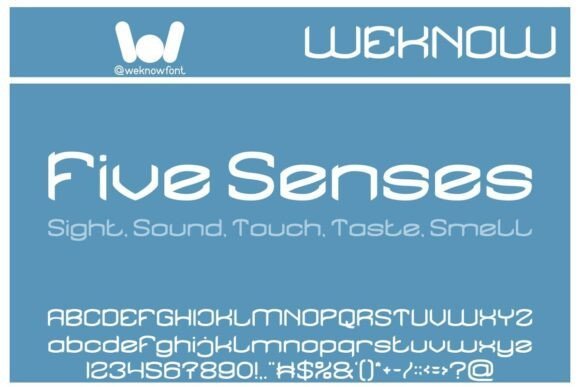
Introduction to Five Senses Font
Imbue your creative endeavors with Five Senses, an eclectic display font that dances on the edge of tradition and innovation.
With its techno-modern aesthetics coupled with a dash of gothic appeal, this font brings a unique fusion of elements together Its geometric fluidity and futuristic flourishes make it ideal for corporate and brand identities, logos, and logotypes.